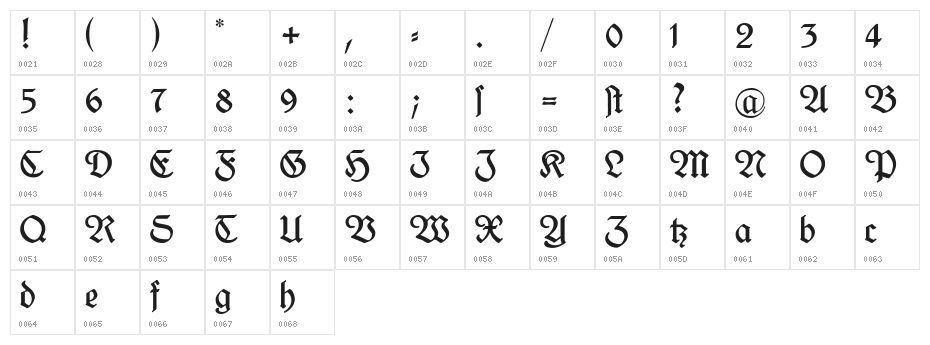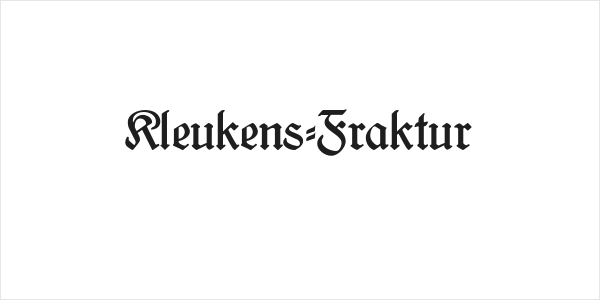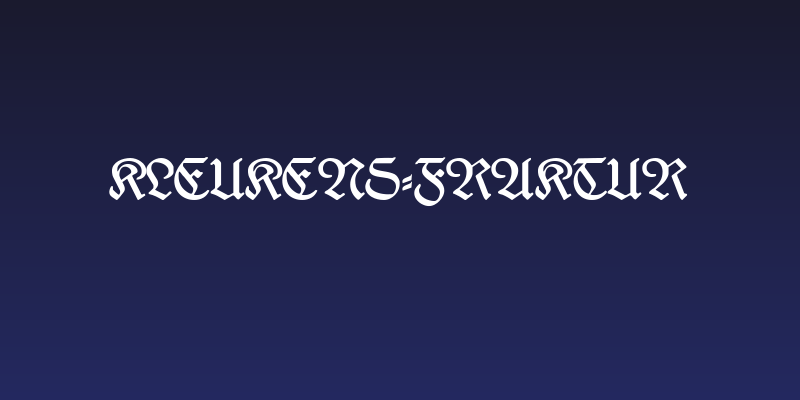
Kleukens-Fraktur Font
Kleukens-Fraktur Description
This font embodies the traditional elegance and intricate design of classic blackletter styles. Each character is crafted with sharp, angular lines and a bold presence, reminiscent of medieval script. The uppercase letters exhibit a strong, authoritative look, while the lowercase letters maintain a consistent flow with distinctive curves and pointed edges. Numerals are designed to match the overall aesthetic, providing a cohesive appearance across all characters. The special characters retain the same stylistic elements, ensuring uniformity throughout the typeface.
| Use Case | Headlines, Logos, Decorative text |
| Proposed Projects | Ideal for historical documents, certificates, book covers, or any project requiring a classic, medieval touch. |